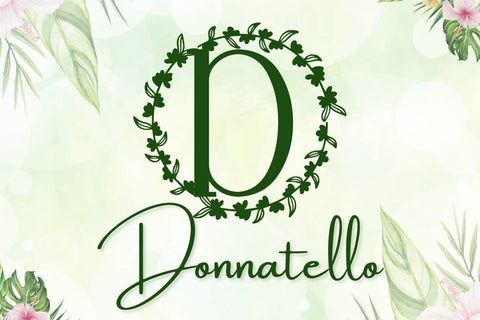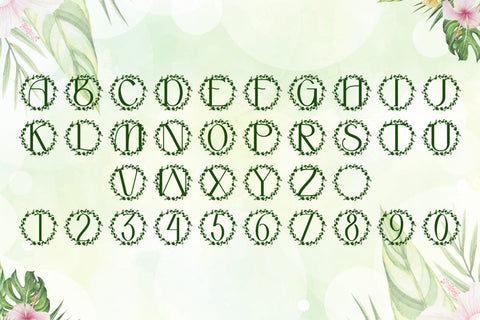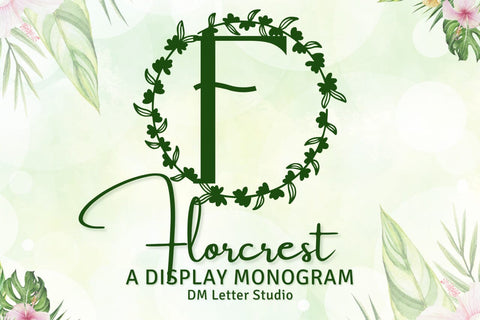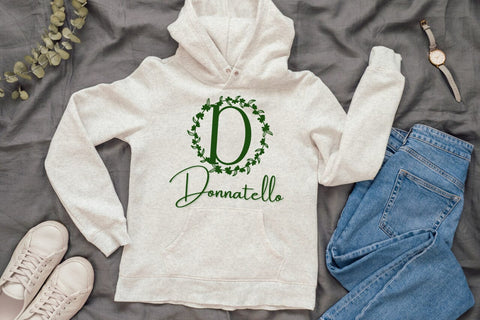
Florcrest Monogram Font
Meet Florcrest, the Monogram Font
Florcrest Monogram Font turns initials into graceful emblems with a subtle botanical touch. Strokes feel clean and poised. Curves stay open, so tiny tags still read clearly. Use it for wedding suites, boutique logos, keepsake gifts, and premium packaging. Moreover, Florcrest pairs beautifully with soft serifs and modern sans fonts, which keeps layouts refined without extra effort.
Where the Monogram Font shines
Set single, double, or triple initials for logos and seals. Then frame them with laurel rings, oval borders, or fine rules to echo the floral spirit. Since proportions favor symmetry, polished compositions come together in minutes. As a result, your thumbnails stand out on crowded marketplaces, and your listings look consistent across product lines.
Design tips for Florcrest Monogram Font
Keep initials large and let white space breathe. Pair the headline monogram with a quiet serif or humanist sans for supporting text. Meanwhile, add micro shadows, a thin inner stroke, or a delicate frame for depth. Because the forms feel airy, metallic accents and textured papers lift perceived value. Finally, keep copy short so the monogram remains the hero.
Select stylistic alternates for key letters
Curves tuned for foil, letterpress, engraving, and clean vinyl cutting
Why creators choose this Monogram Font
You need elegance that reads at a glance and sells fast. Florcrest delivers. It grabs attention at thumbnail size, speeds your layout process, and keeps your brand voice cohesive from invites to packaging and gifts.